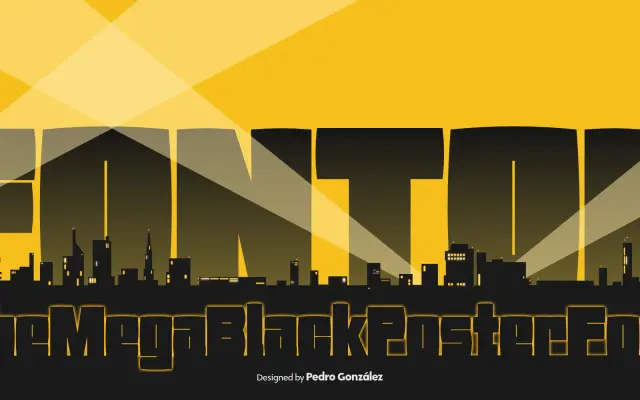
A barrel-inspired display typeface from Peggo Fonts, built for poster and large-format work with soft, volumetric curves and OpenType decorative features.
Drawn with reference to the rounded form of large barrel shapes, Fonton uses soft curves across each stroke to create a contemporary display face suited to posters, magazine covers and POP graphics. The family ships in three variants, Extralight, Poster and Small, and includes discretionary ligatures, alternates and stylistic figures enabled via OTF features. Its urban, hip-hop aesthetic makes it a functional choice for large-scale print and graphic culture work.
Fonton is classified as a display typeface owing to its large, volumetric letterforms inspired by barrel shapes, with soft curves designed explicitly for poster and large-format use rather than continuous text.